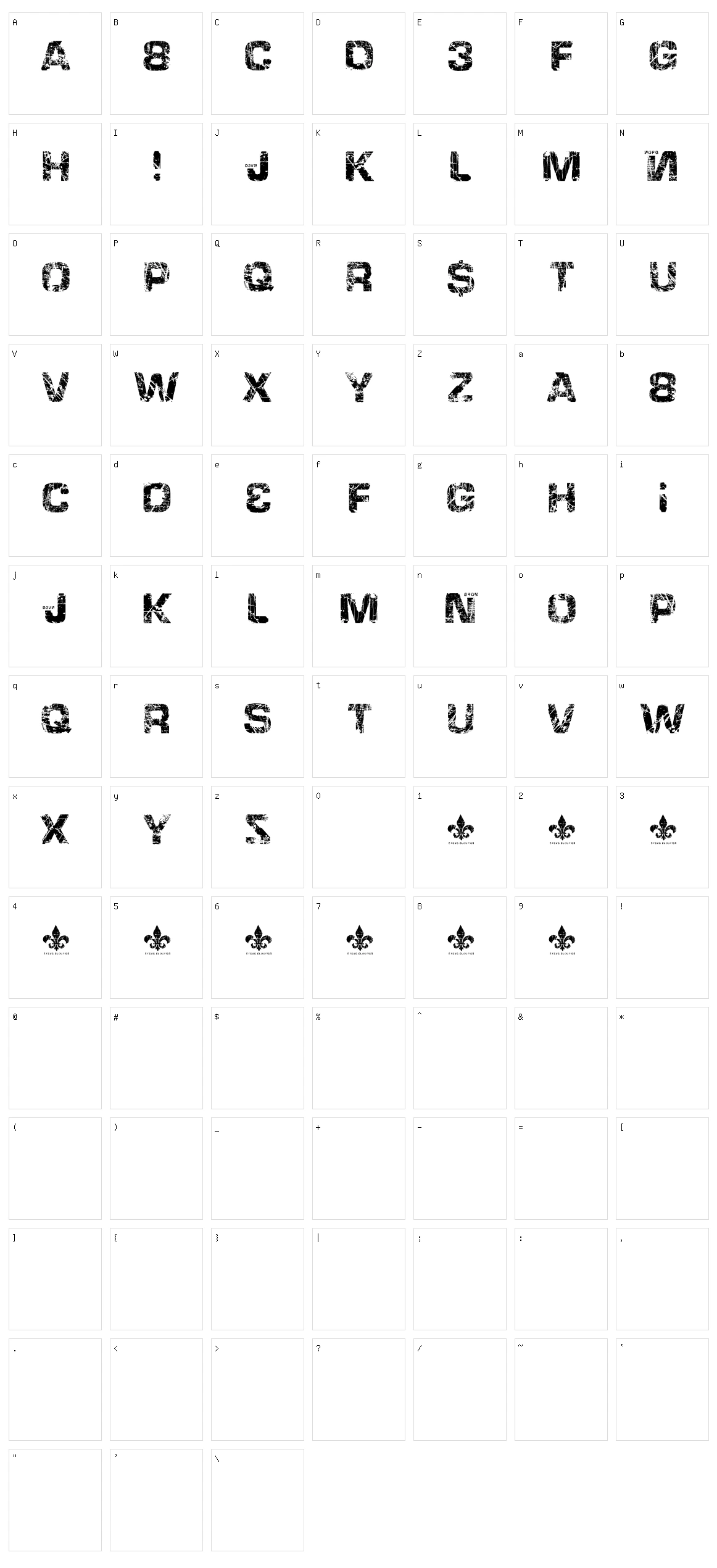
The free font Hacking Trashed is carefully designed by Cloutierfontes, showcasing a thoughtful balance of creativity and usability and falls under the Eroded font style. When you download the ZIP file, it contains only 472.79 KB of font files, making it lightweight and quick to download. Please review the license details below to understand permitted usage and distribution rights. If license information is not available, we recommend using this font for personal projects only or contacting the author directly for commercial usage permissions.